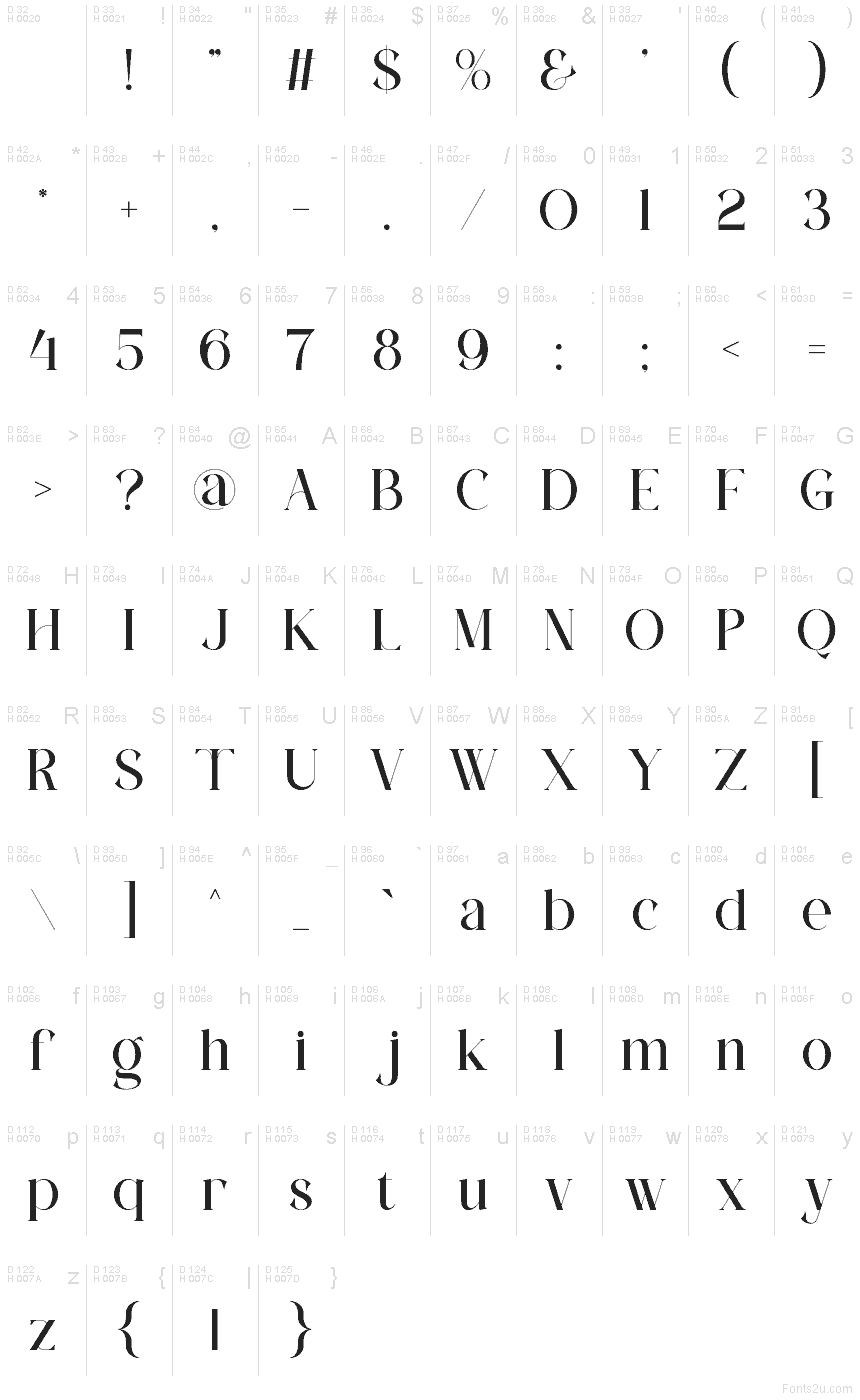
Fasmey Regular
Fasmey font by Ermedia Studio is a free high‑contrast serif display font. It carries glossy‑magazine drama in every letter: inky thick strokes snap into razor‑thin hairlines, while poised curves feel tailored and runway‑ready. Tight rhythm and elegant serifs create a luxe presence that reads crisp at headline sizes without losing warmth.
Using Fasmey, your work instantly leans into fashion and beauty—think editorial covers, boutique logos, perfume packaging, lookbook titles, event invitations, and elegant posters. The generous contrast gives headlines a cinematic pop, and the smooth flow adds a refined, modern edge. Pair this free font with a clean, unobtrusive grotesk for body copy and keep Fasmey big to let those sculpted details shine.